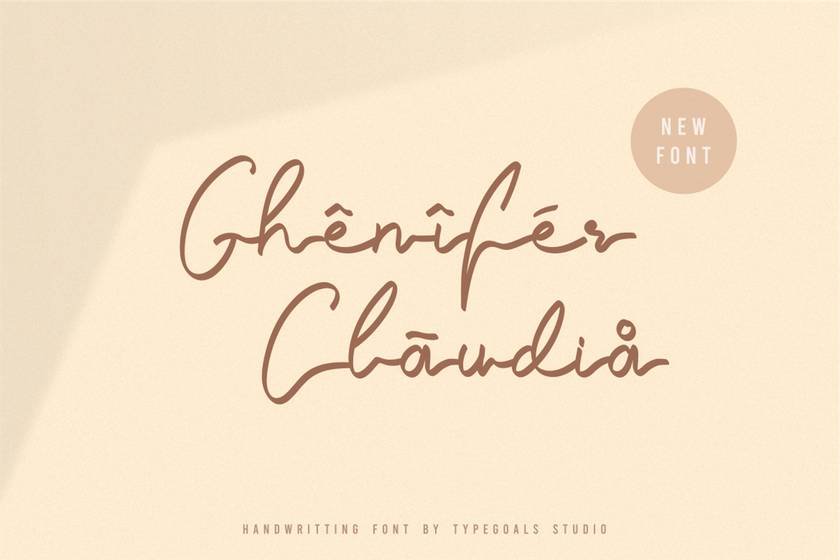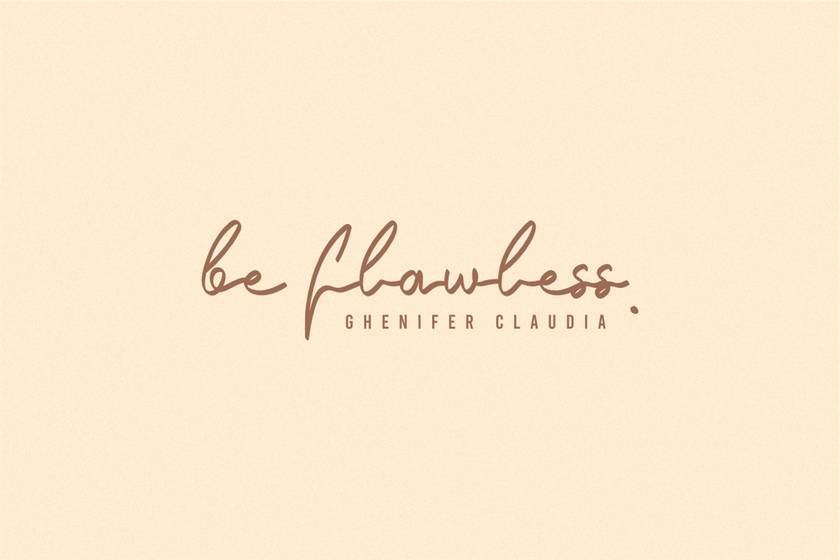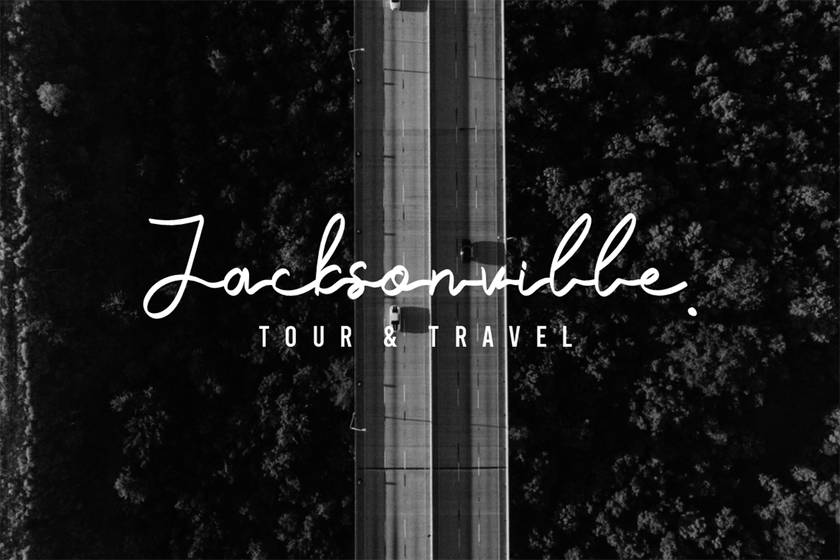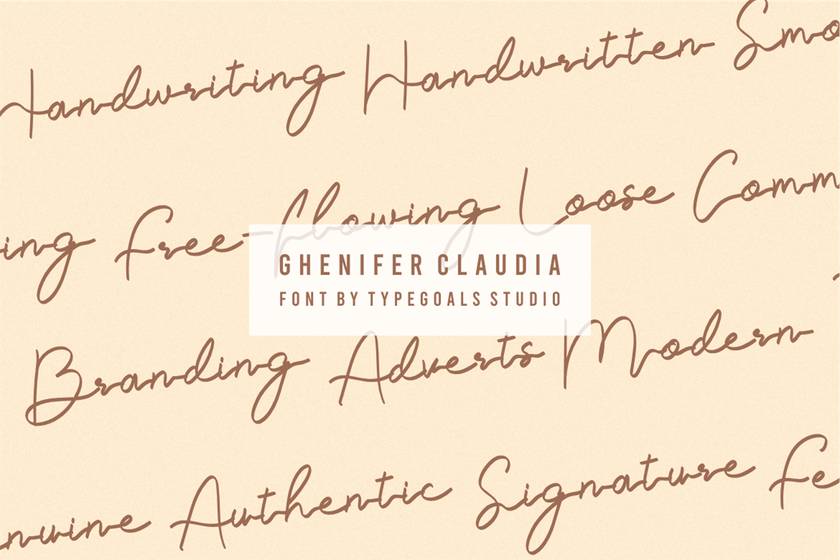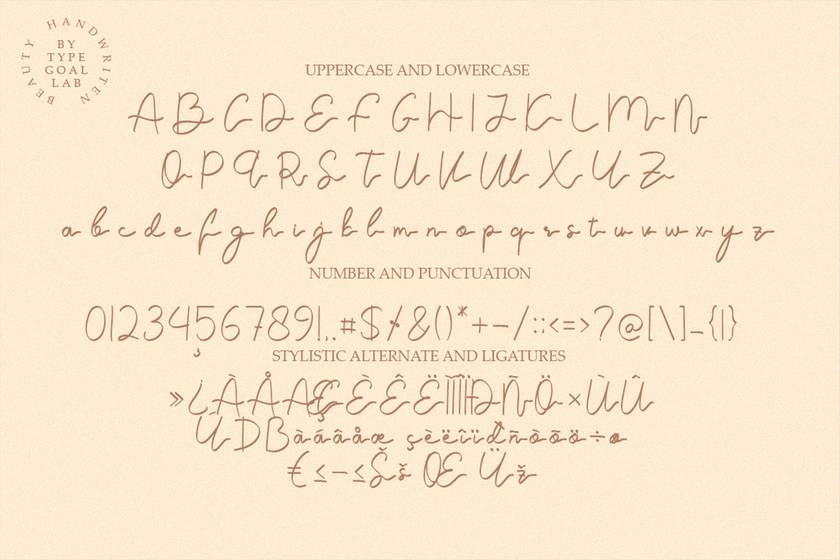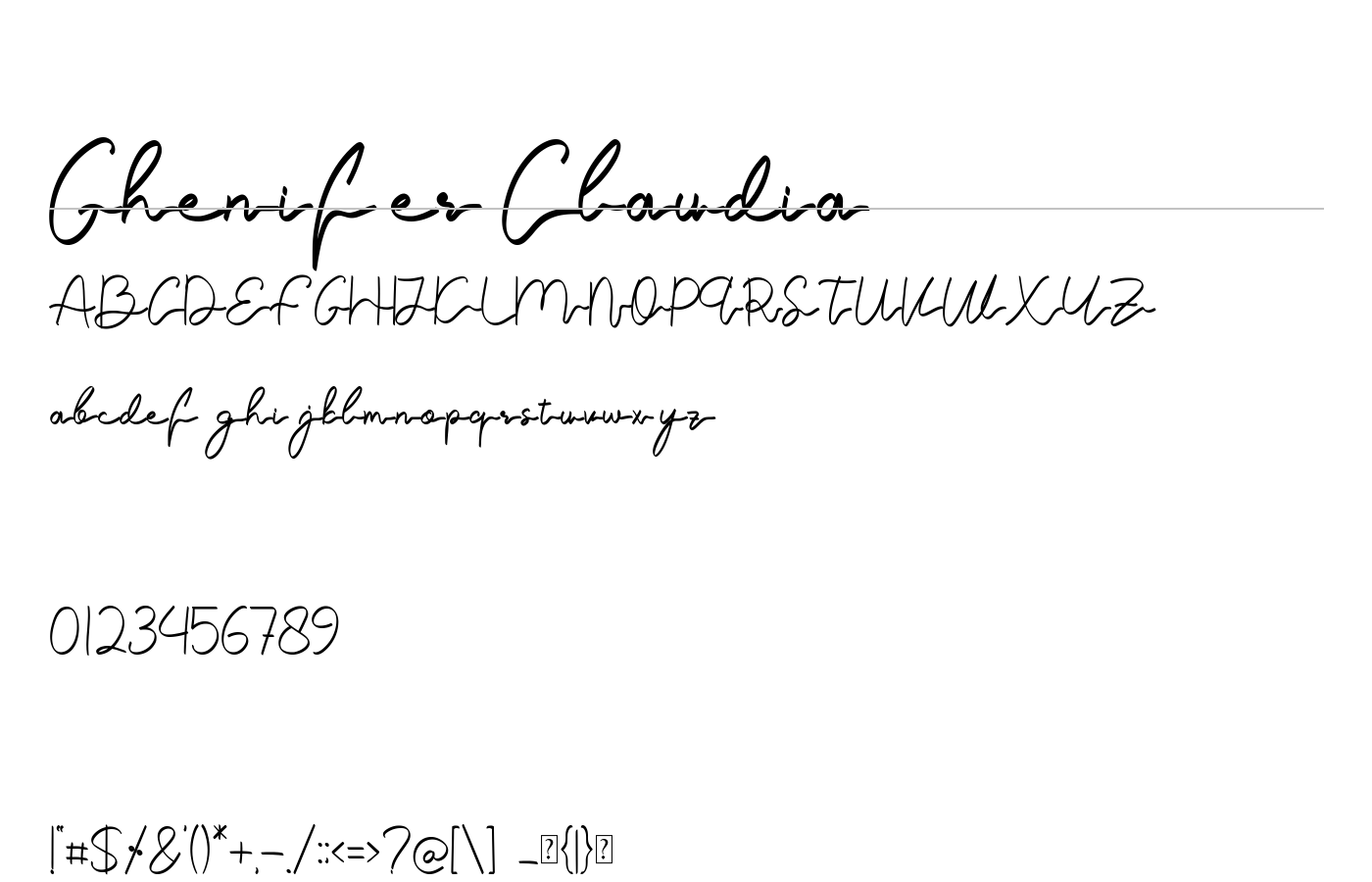
Ghenifer Claudia is a delicate, handwritten script font featuring slender, flowing lines that convey a natural and personal touch. Its light weight and airy spacing make it ideal for elegant, casual designs such as invitations, branding, and social media graphics where a sophisticated yet approachable feel is desired. This font shines in contexts that benefit from a warm, intimate, and artistic style without sacrificing readability.
Ghenifer Claudia Font
About Ghenifer Claudia Font
| Font family | Ghenifer Claudia Font |
| Designer | Typegoals labs |